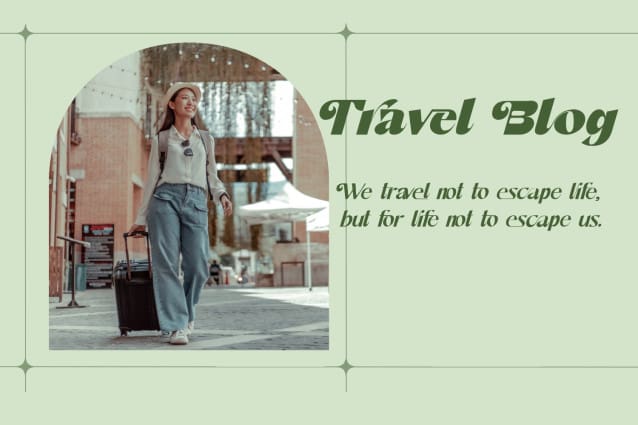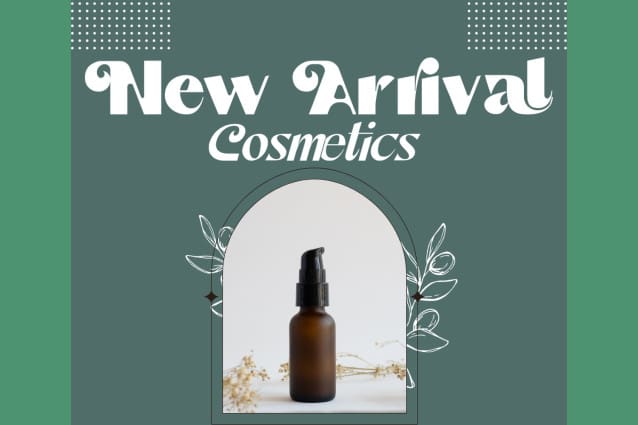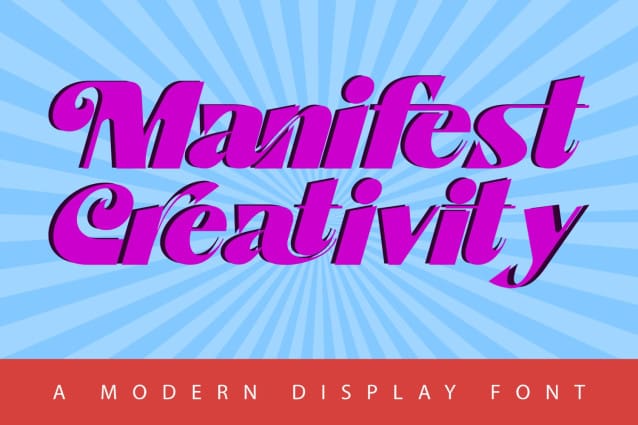
Manifest Creativity Font
Manifest Creativity Font is a big, chunky and retro display font that is suitable for headers and text. Not only big, but this font has geometric shapes that can make your designs stand out. This contrasting appearance makes the font perfect for use in big titles, headlines, branding projects, editorial layouts & so much more!
Manifest Creativity was built with OpenType features and includes 100 ligatures, alternate, numbers, punctuation, and it also supports other languages.